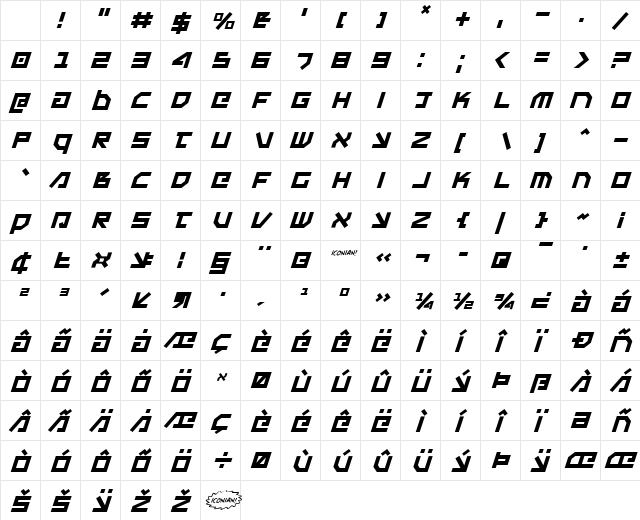
Complete Uno Estado Italic glyph index. Displaying only characters natively supported by Uno Estado Italic font.
Uno Estado is a composed and adaptable typeface that performs quietly and consistently across a wide range of design contexts. The slanted form adds forward momentum and visual energy.